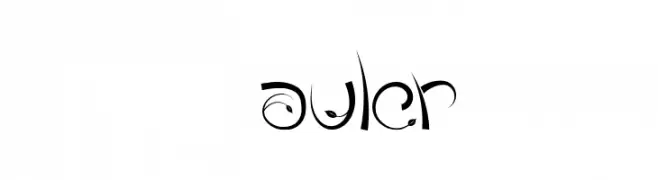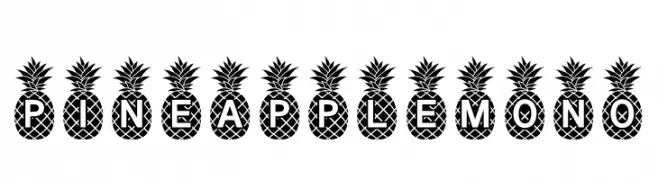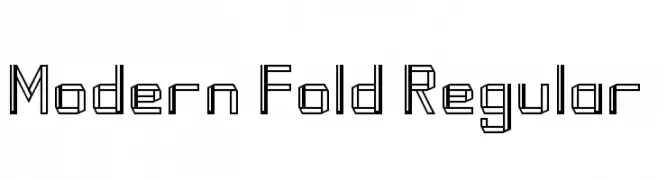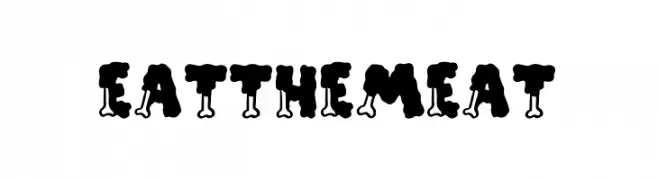
( Fonts by Alexa )
A playful, bold font with rounded, cartoonish characters.
( Fonts by AV Type )
A bold, dynamic font with playful, exaggerated strokes and a cartoonish style.
( Fonts by Alexa )
A bold, playful font with a hand-drawn, whimsical style.
Indonesian cultural and landmark icon set in a bold, pictographic style.
( Fonts by Qbotype Fonts )
An artistic and decorative font with intricate swirls and bold strokes.
( Fonts by monocotype )
A playful, hand-drawn font with bold, rounded characters and a whimsical style.
A bold, futuristic font with a 3D dotted pattern.
( Fonts by www.freesvgdesigns.com )
A decorative font with characters inside stylized pineapples, ideal for tropical-themed designs.
( Fonts by Natasya Sharon )
A modern, geometric font with a three-dimensional folded effect.
( Fonts by Feri Fauzi )
A playful, meat-themed font with bold, chunky letters and bone details.